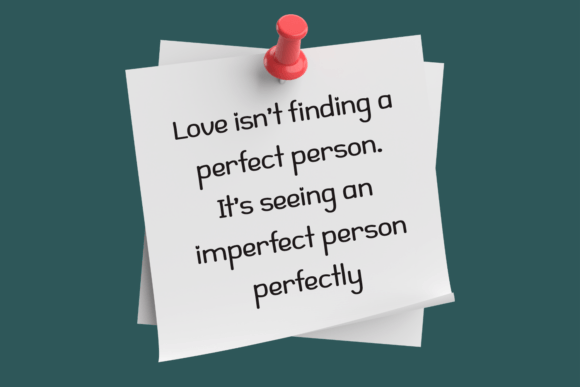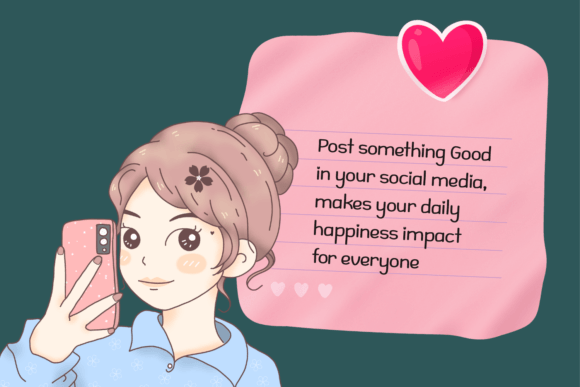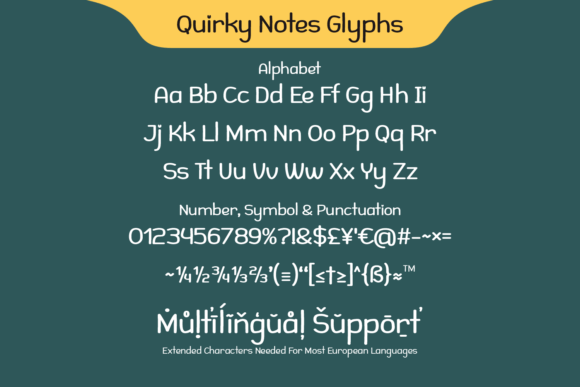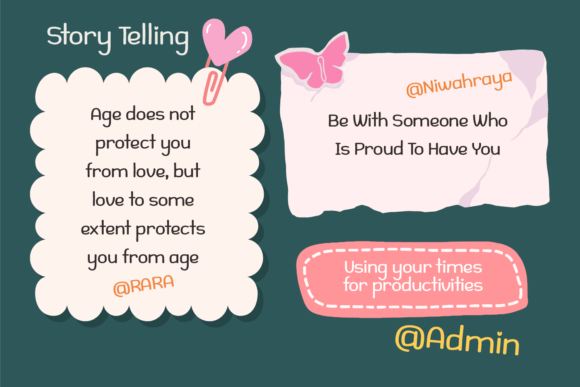
Introduction to Quirky Notes Font
Introducing Quirky Notes – an innovative handwritten font that infuses a distinct aesthetic into your design creations, enhancing their charm and captivating appeal.
It’s a versatile choice, perfect for adding a personal touch to your brochures, notebooks, and other designs, effortlessly marrying style and eloquence for a truly unique look Your design journey is about to gain an exciting edge with Quirky Notes.
Key Features of Quirky Notes Font
Why Choose Quirky Notes Font?
Quirky Notes Font offers exceptional quality and versatility, making it a valuable addition to your design toolkit. Whether you’re creating for personal projects or commercial use, Quirky Notes Font delivers professional results.